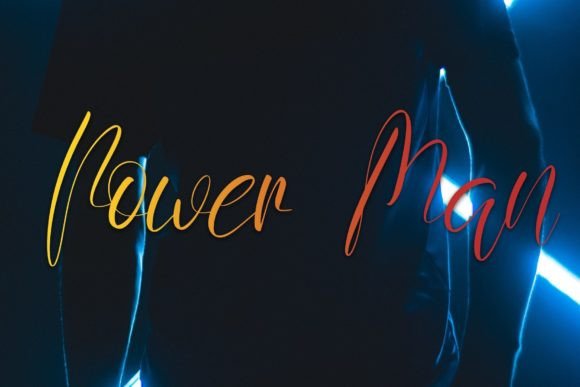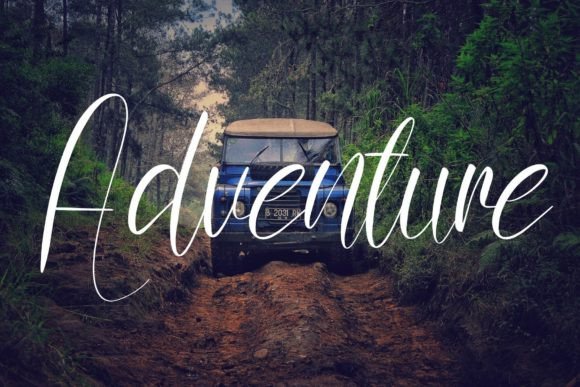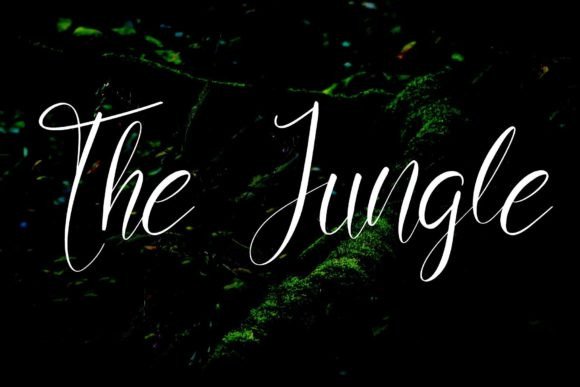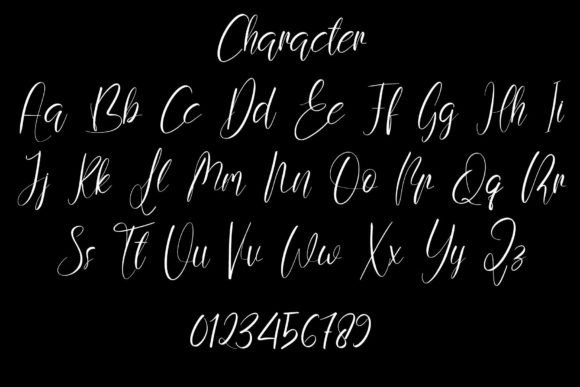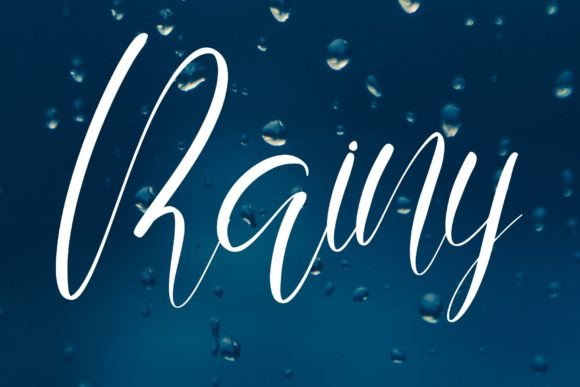
Power Man Font
“Power Man is a font that exudes style and unparalleled elegance. Its graceful and sophisticated script adds a touch of refinement to a variety of designs, making it a perfect choice for wedding invitations, thank you cards, quotes, greeting cards, logos, business cards, and any other project that requires a handwritten touch.
What sets Power Man apart is its ability to transform ordinary designs into extraordinary works of art. The font’s stylish and fluid characters create a sense of fluidity and grace, enhancing the overall visual appeal of your projects. Whether you’re designing upscale invitations or elegant business branding, Power Man adds a touch of class that captivates the viewer’s eye.
Power Man’s versatility shines through in its adaptability to different design contexts. Its elegant script lends itself well to both formal and casual applications, making it suitable for various occasions and themes. Whether you’re creating luxurious event invitations or designing minimalist logos, Power Man seamlessly integrates into your creative vision, ensuring a cohesive and sophisticated look.
Incorporating Power Man into your designs is like adding a stroke of artistic brilliance. Its stylish and incredibly elegant script elevates your projects, making them visually stunning and memorable. Whether you’re a professional designer or someone with a passion for creativity, Power Man empowers you to infuse your designs with a touch of timeless elegance.
Power Man is more than just a font; it’s a statement of sophistication and style. Its graceful and elegant script, combined with its versatility, makes it an essential addition to any design toolkit. Embrace the power of elegance with Power Man and watch as your designs come to life with a sense of refinement and class that leaves a lasting impression on everyone who sees them.”